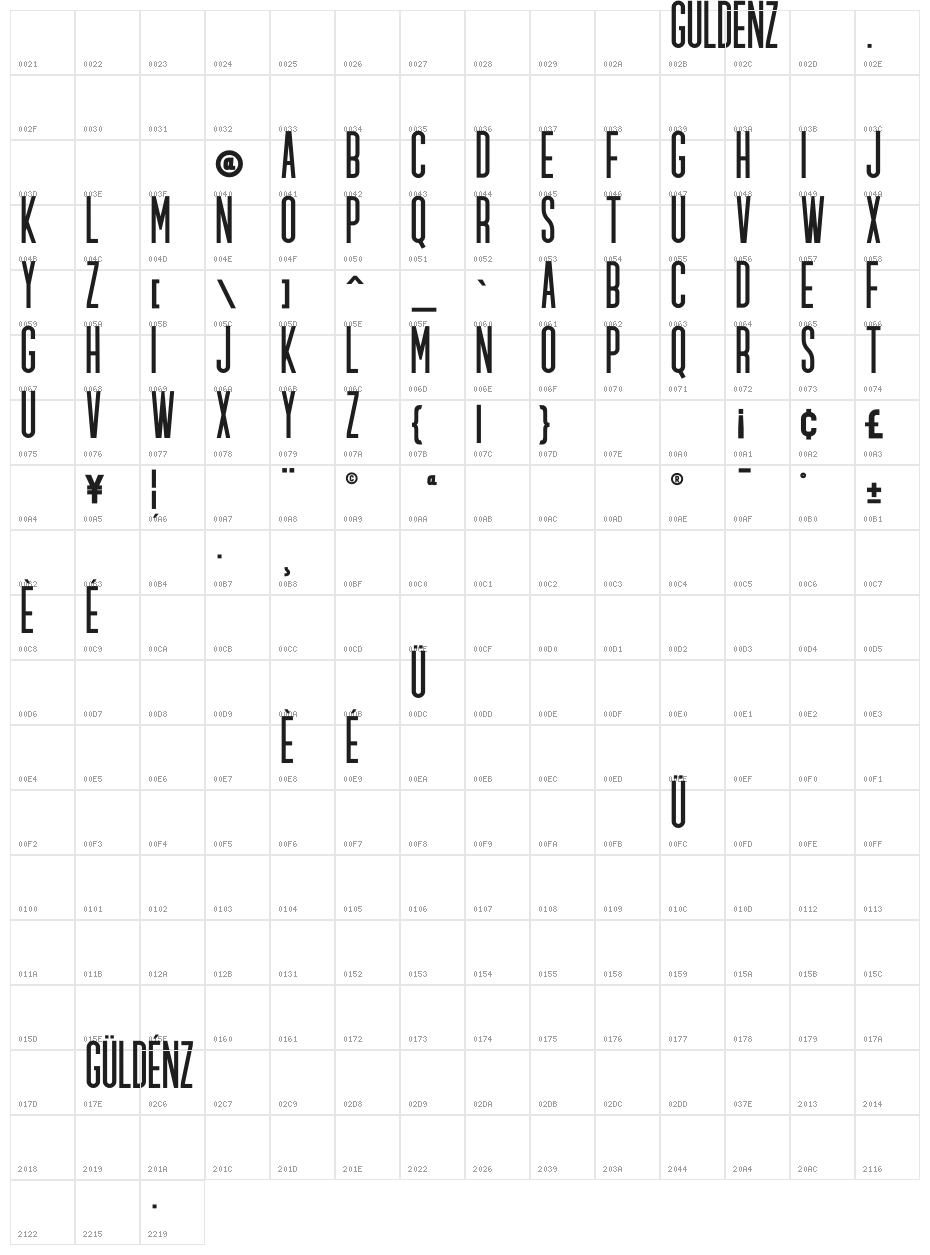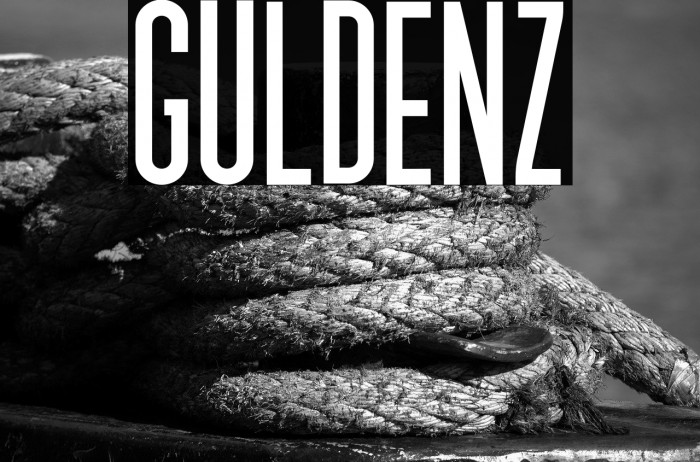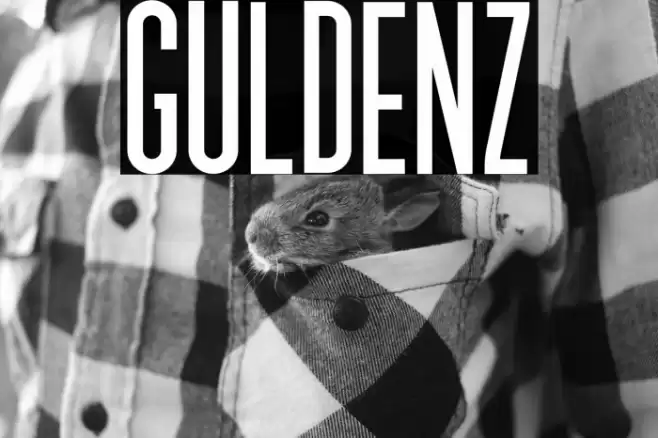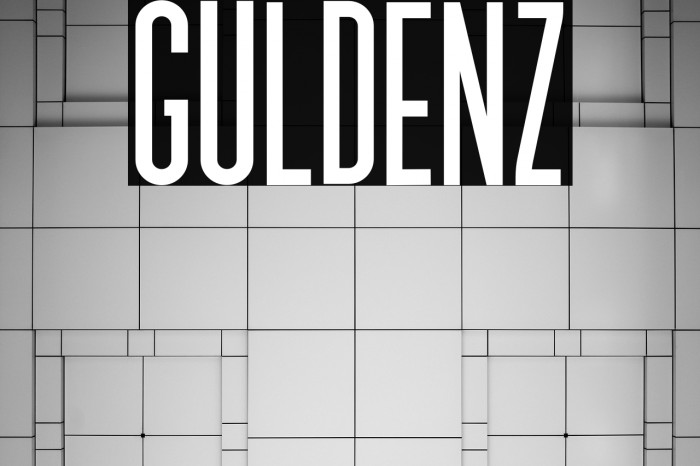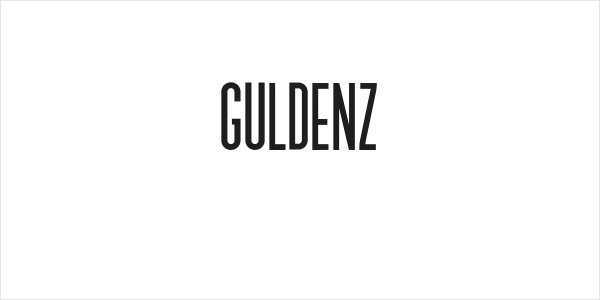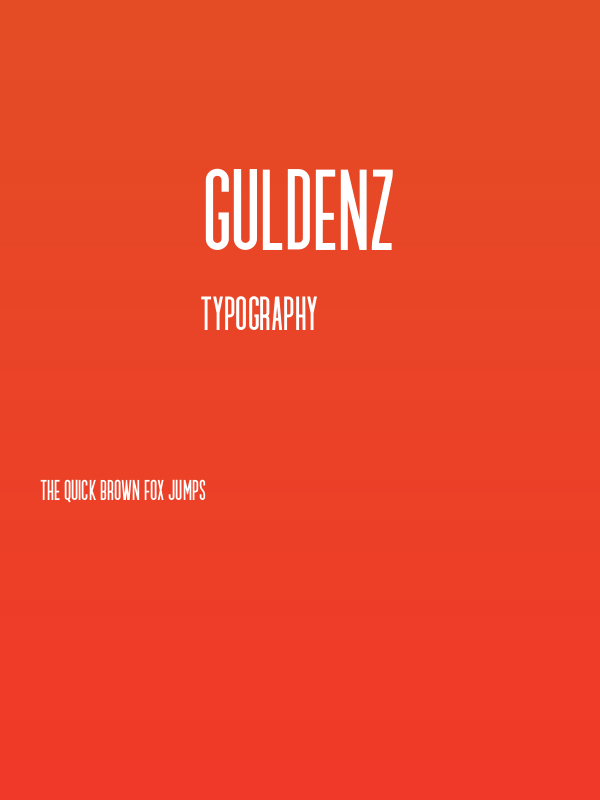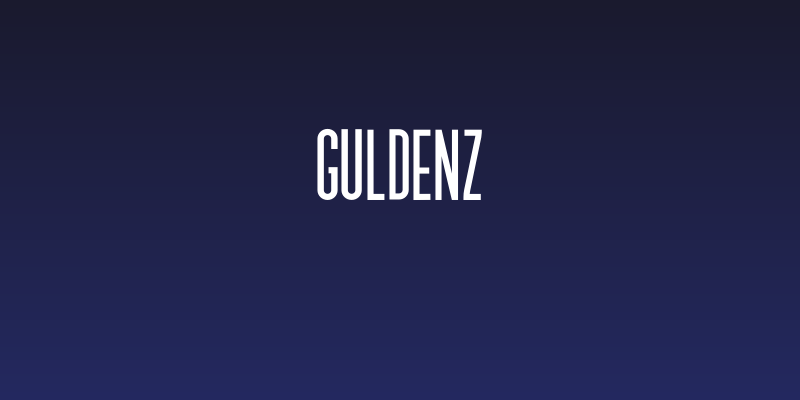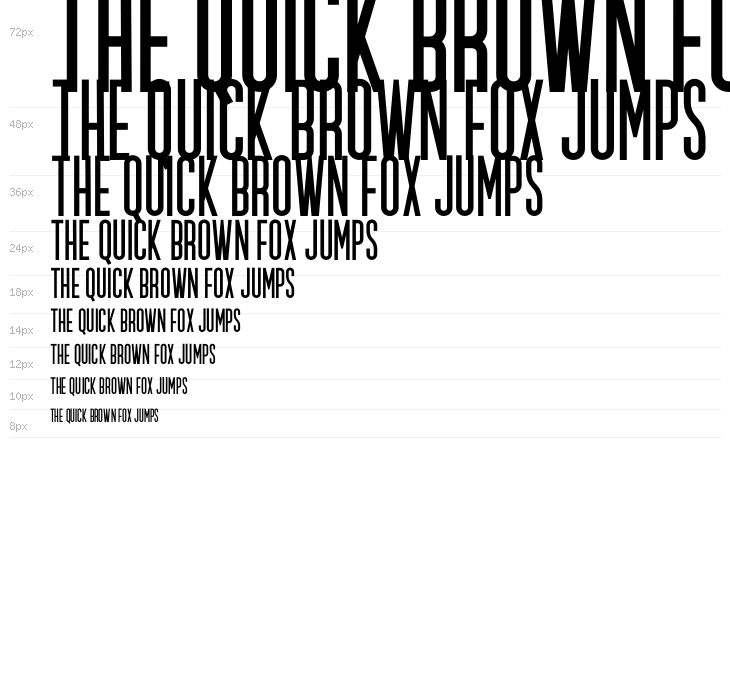
GULDENZ Font
GULDENZ Description
This font exhibits a bold and condensed style, characterized by its tall and narrow letterforms. The uppercase and lowercase letters maintain a consistent height, creating a uniform appearance. The strokes are thick and consistent, providing a strong visual impact. The font's design is modern and sleek, with minimal contrast between thick and thin strokes, emphasizing its boldness. The characters are tightly spaced, enhancing the condensed look and making it suitable for impactful headlines or titles. Its overall style is contemporary, making it a great choice for projects that require a strong and assertive typographic presence.
| Proposed Projects | Ideal for headlines, posters, branding, and any design requiring a strong visual impact. |